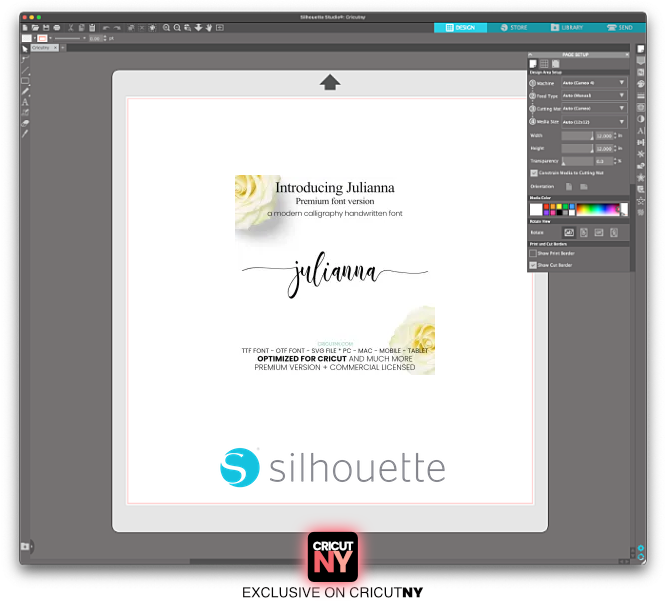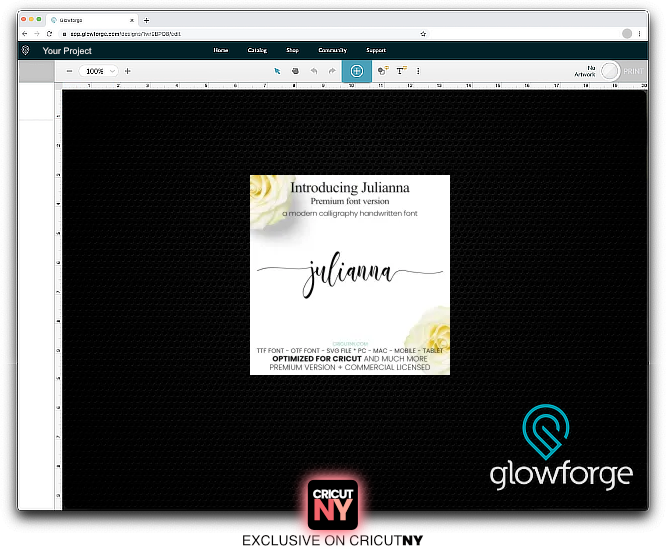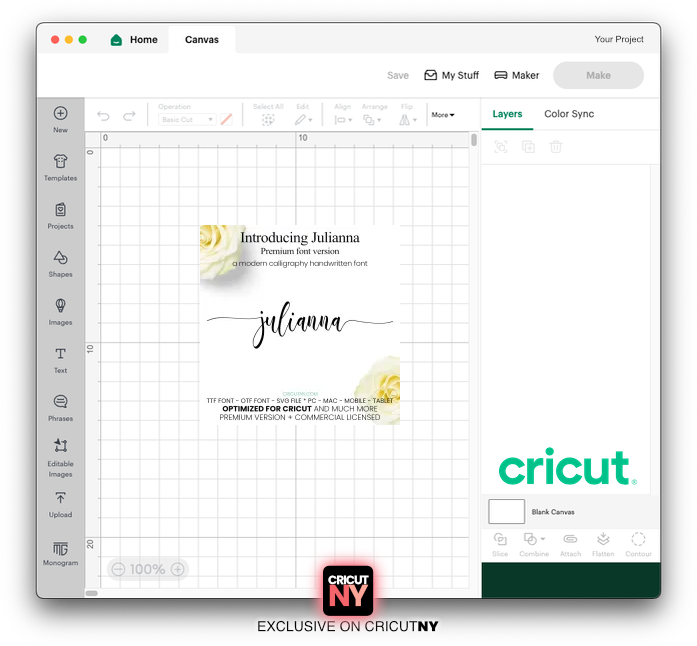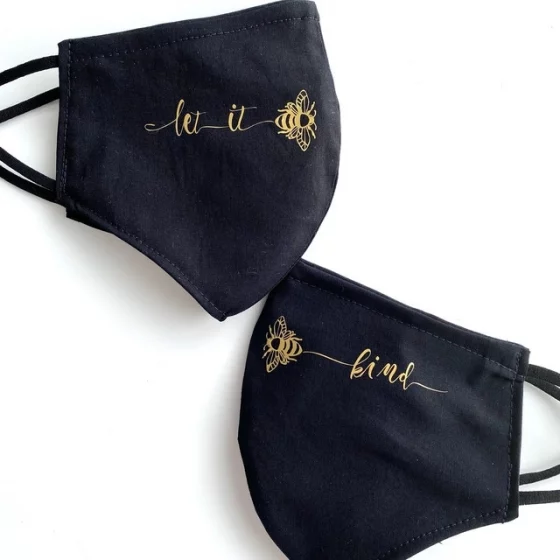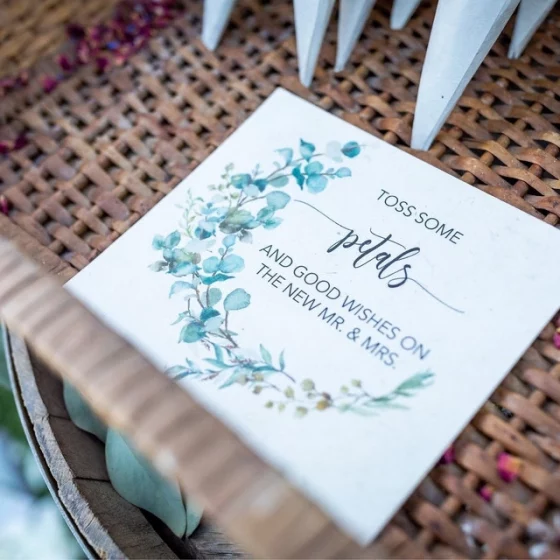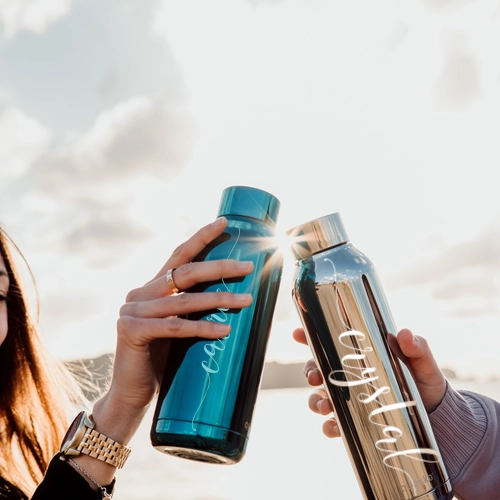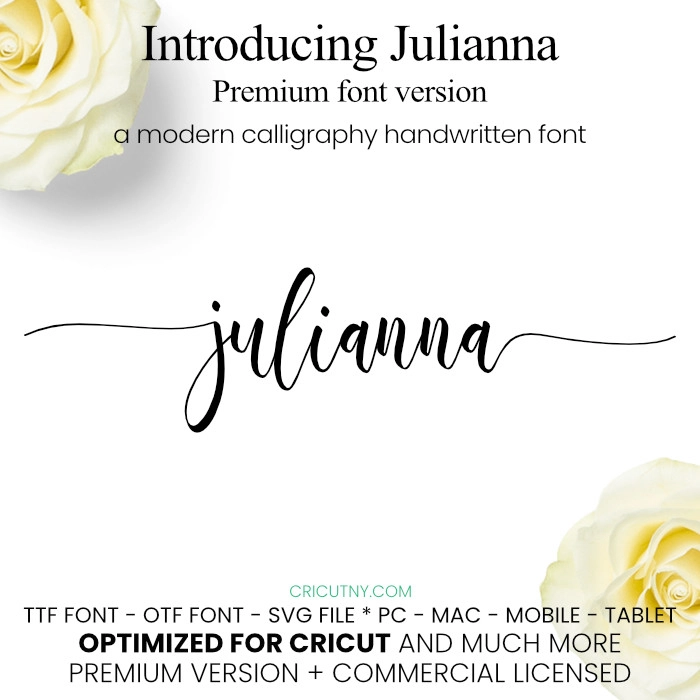
This is the full font version with all the tails! This font has been a top seller on Etsy for a while now. I keep getting requests for this font, so I think it’s time to make it available for the Cricutny community. On that version, I include a tail that is available only here on Cricutny; please enjoy it with your projects.
The delicate lines of this handwritten font with tails make it feminine—a perfect style for any project that requires details and attention. You will notice all the different swirly tails that come with this beautiful font. It is essential to have different looks when it’s time to create a title or a word that needs to be seen.